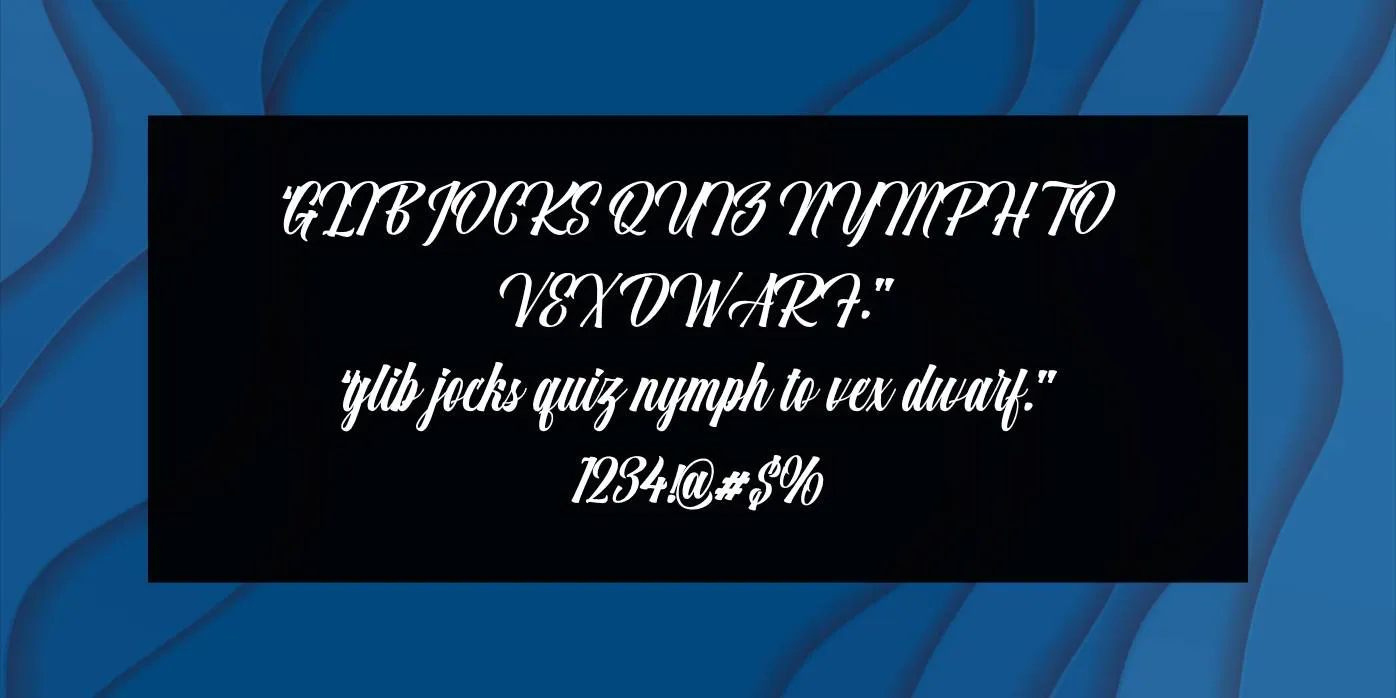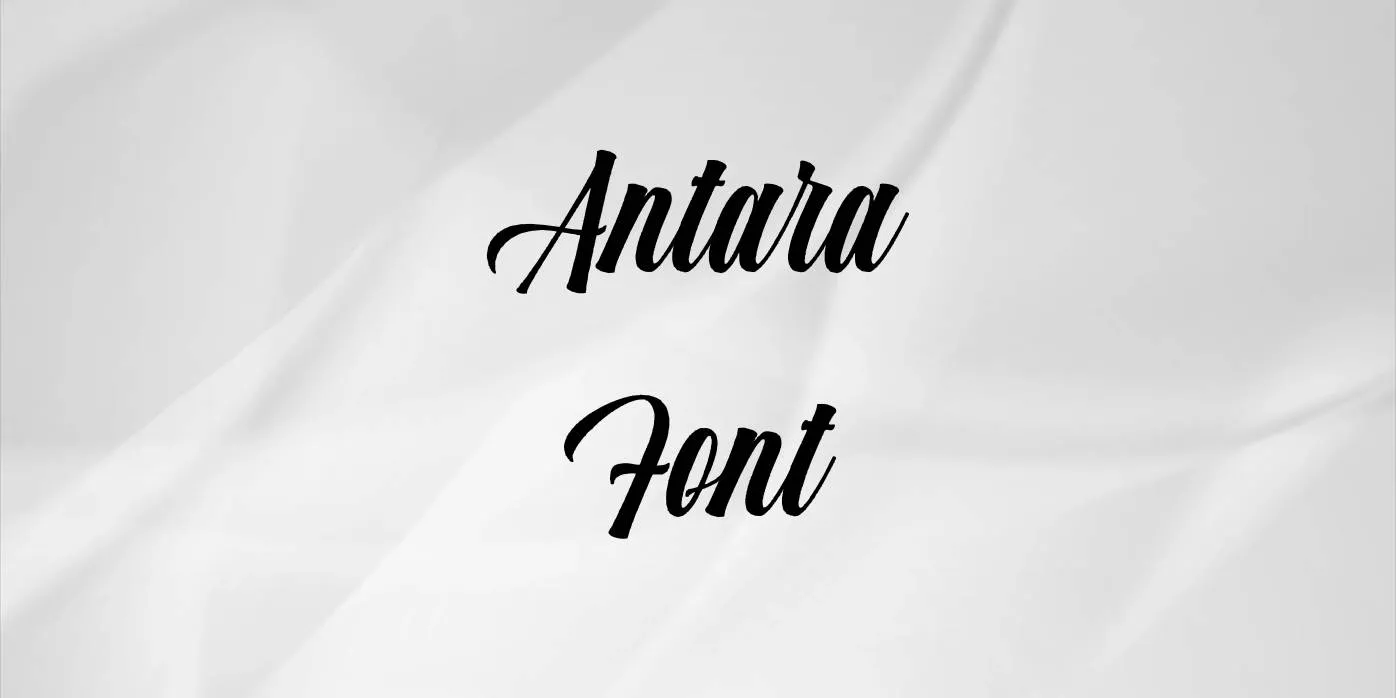
Antara Font
Let’s talk about a unique and stylish font Antara Font. It was designed by a team of Groens. This typeface is a very nice and clear font and can be read easily for any project. It can be read easily even in small-size text.
It can pair with other fonts like tahu font which can give you more attractive and stylish looks. The patterned nature of this typeface is Italic. It supports file formats TTF and OTF. An online generator tool also supports it in which you can change simple text into a stylish look without downloading the font.